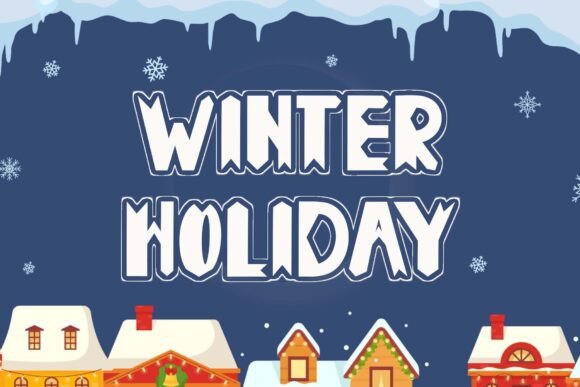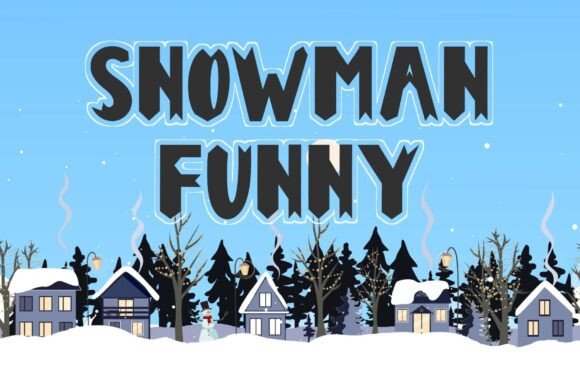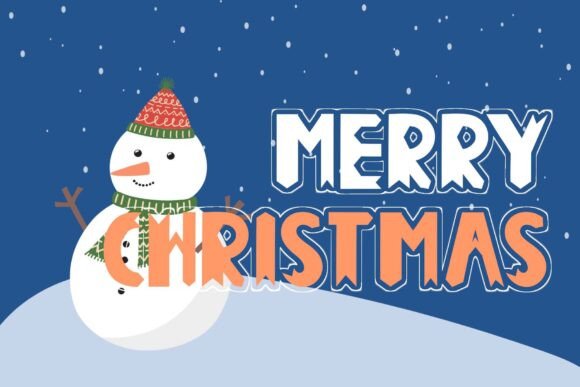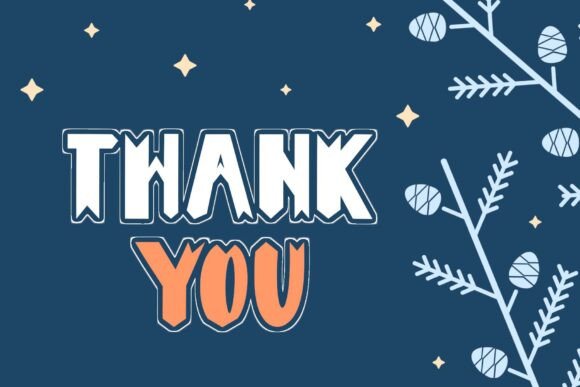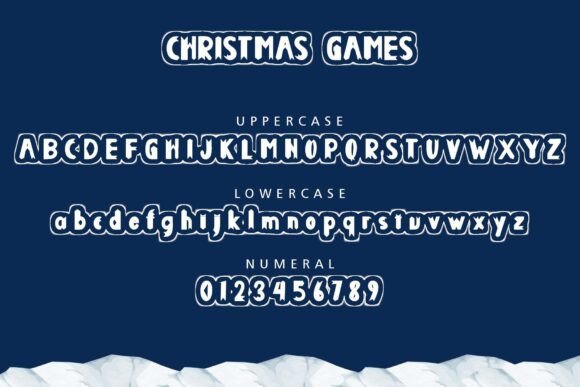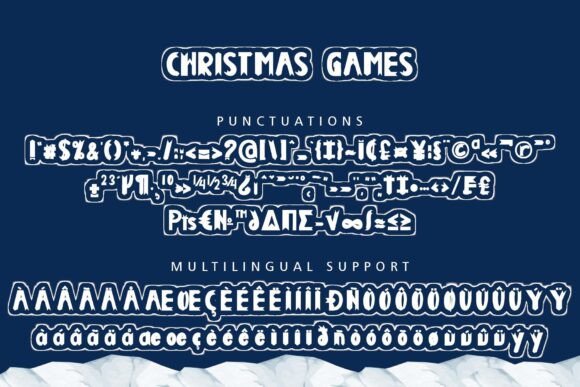
Christmas Games Font: The Ultimate Display Font for Festive Designs
Are you looking for a unique and festive font to make your Christmas, winter, or party designs stand out? Look no further than the Christmas Games Font! This display font is perfect for creating eye-catching banners, posters, prints, and branding materials that will leave a lasting impression on your audience.
What Makes Christmas Games Font So Special?
Christmas Games Font is a one-of-a-kind display font that comes with a wide range of features, including:
- Capital letters: Make a bold statement with uppercase letters that are perfect for headings and titles.
- Lowercase letters: Add a touch of elegance with lowercase letters that are great for body text and descriptions.
- Numbers: Easily add numbers to your design, whether it’s for a countdown, a price, or a date.
- Punctuation: Complete your sentences with a range of punctuation marks, including commas, periods, and exclamation points.
- Multilingual support: Reach a global audience with a font that supports multiple languages.
Perfect for a Variety of Designs
Christmas Games Font is not just limited to Christmas designs. Its versatility makes it perfect for a range of projects, including:
- Christmas designs: Create festive holiday cards, invitations, and decorations with a unique and playful touch.
- Winter designs: Add a touch of winter wonderland magic to your snowflakes, icicles, and frosty designs.
- Party designs: Make your party invitations, banners, and decorations stand out with a fun and playful font.
- Halloween designs: Create spooky and kooky designs with a font that’s perfect for the Halloween season.
- Valentine designs: Spread love and joy with a font that’s perfect for Valentine’s Day cards, invitations, and decorations.
- Comic and cartoon designs: Add a playful touch to your comic strips, cartoons, and illustrations.
- Banners and posters: Create eye-catching banners and posters that will grab attention and leave a lasting impression.
- Print designs: Use Christmas Games Font for a range of print designs, including business cards, brochures, and flyers.
- Branding: Establish your brand identity with a unique and memorable font.
- Stickers: Create fun and playful stickers that will add a personal touch to your gifts, packages, and designs.
Why Choose Christmas Games Font?
With so many fonts available, why choose Christmas Games Font? Here are just a few reasons:
- Unique and playful: Christmas Games Font is a one-of-a-kind font that’s sure to add a touch of personality to your designs.
- Versatile: Use it for a range of projects, from Christmas designs to comic and cartoon illustrations.
- High-quality: This font is designed with high-quality craftsmanship, ensuring that it looks great in any design.